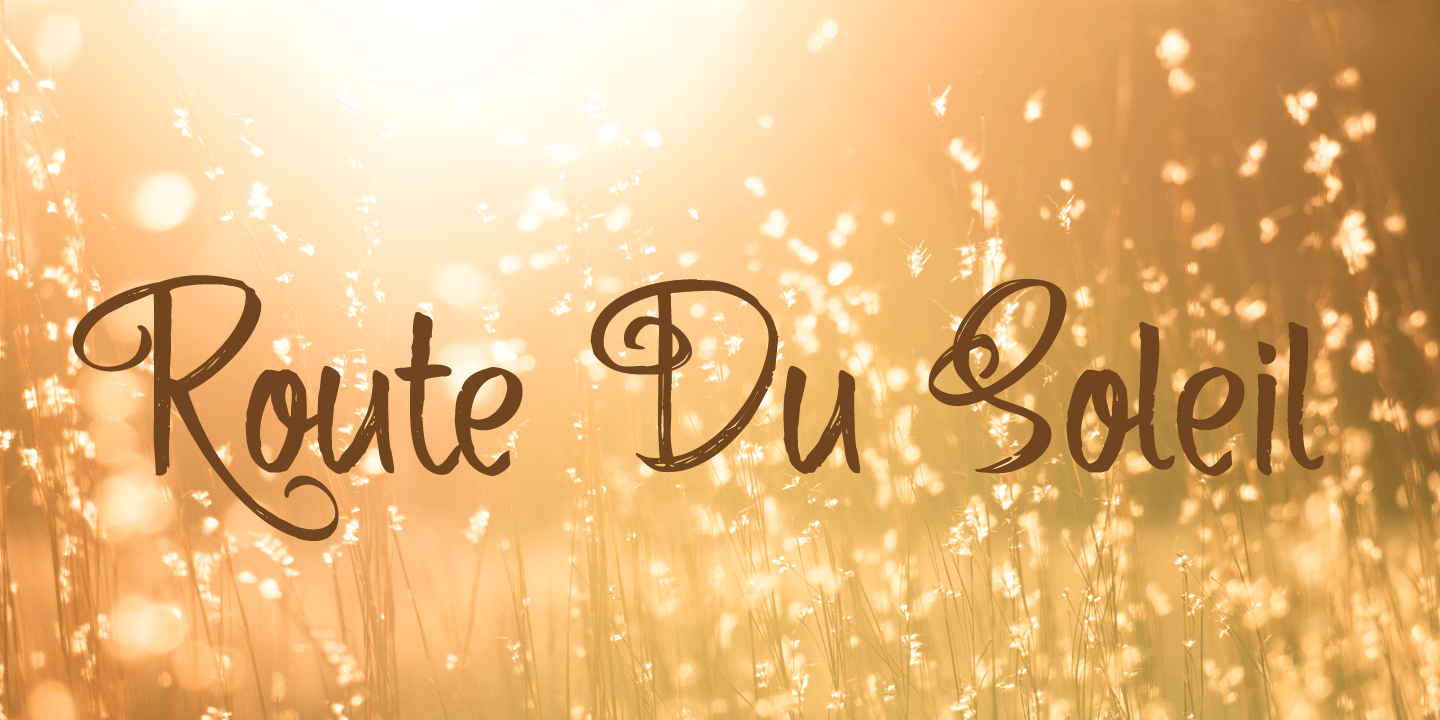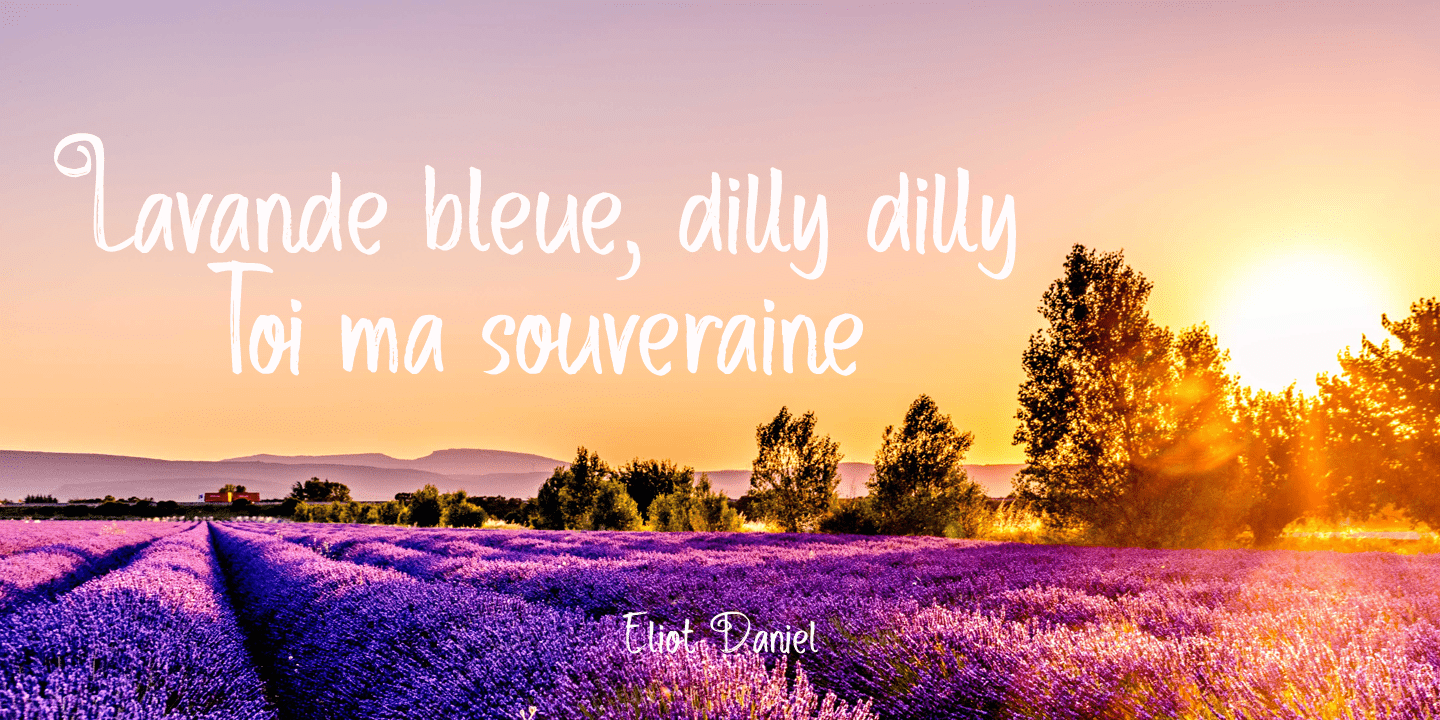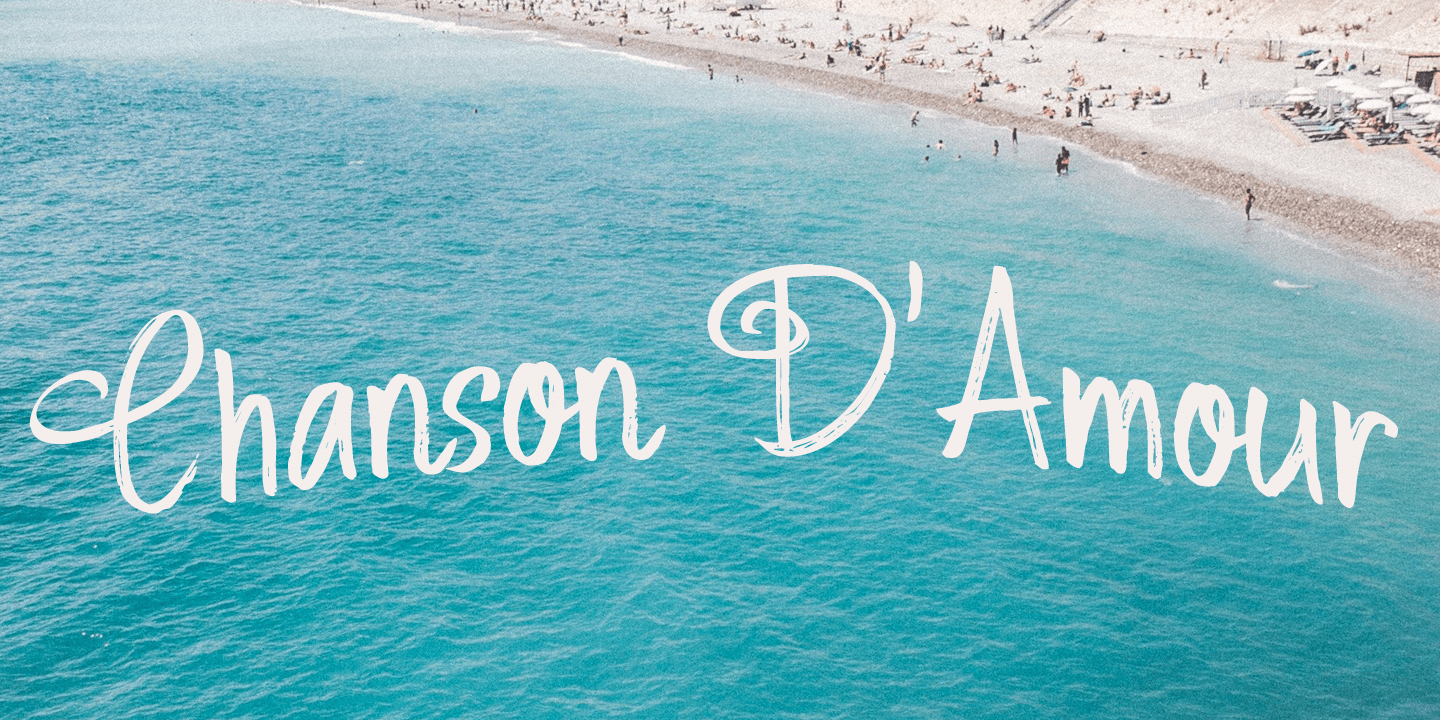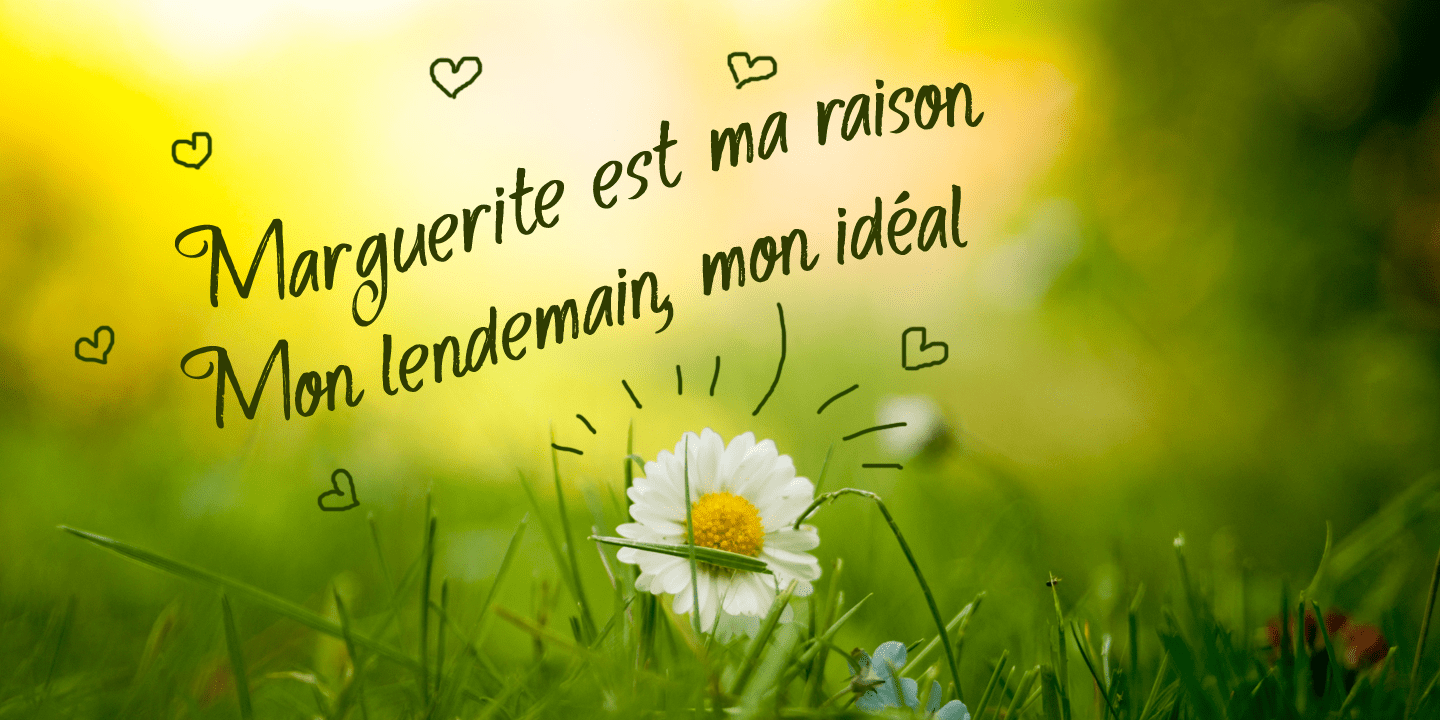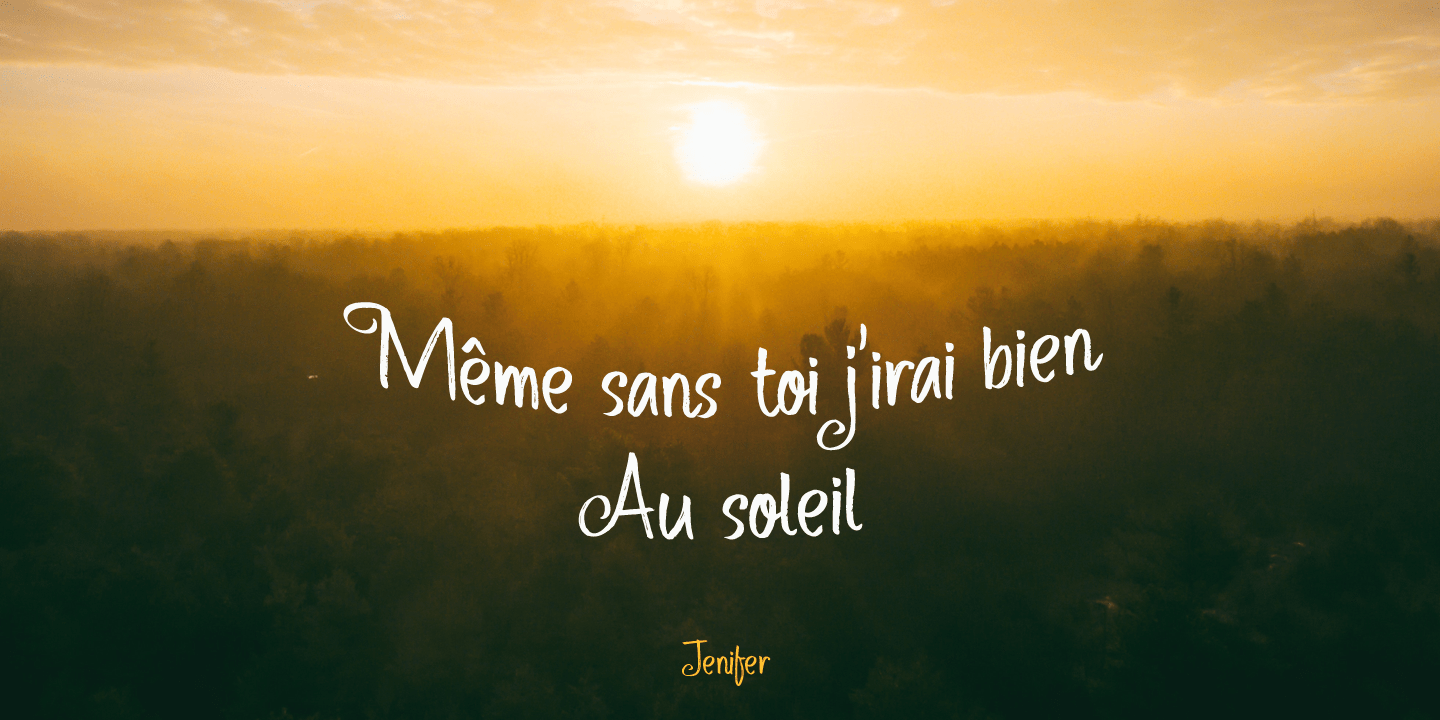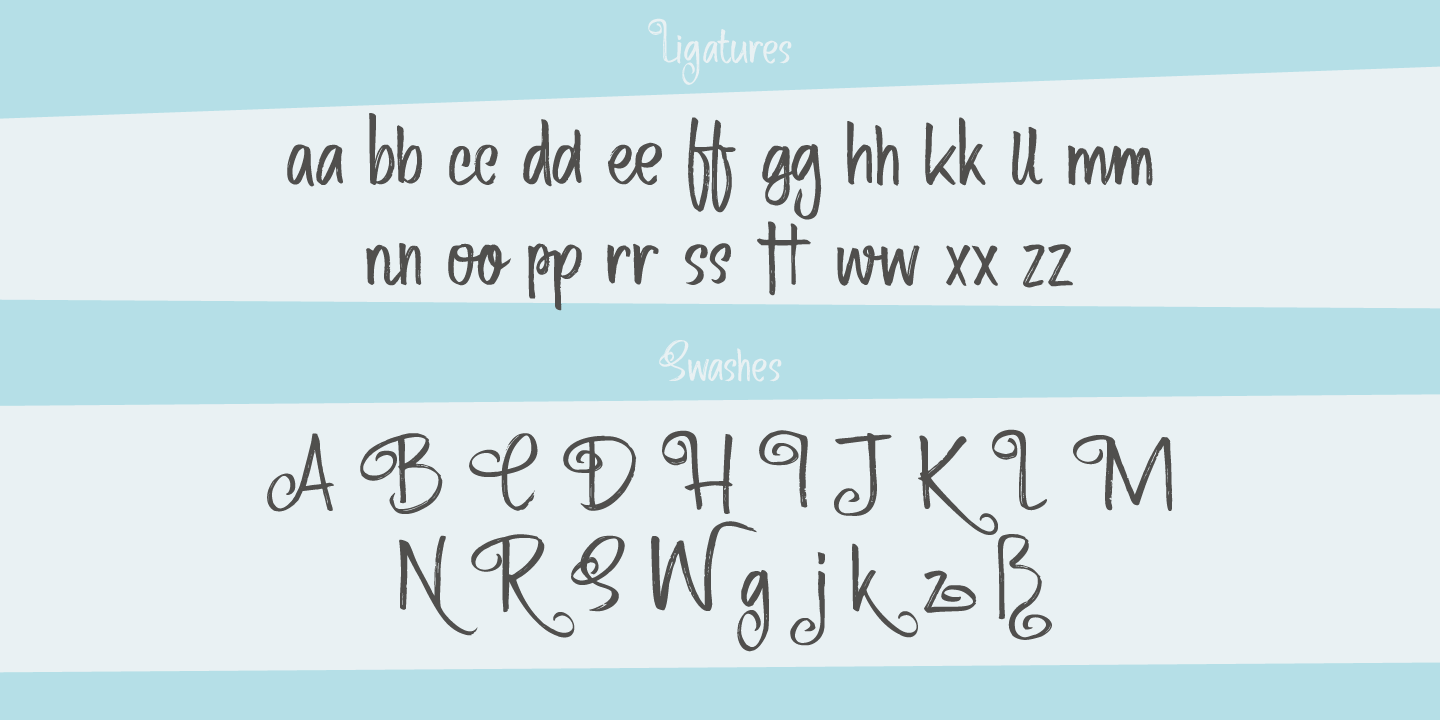
Route Du Soleil
Probably everyone living in Europe has heard of the (in)famous Route Du Soleil. The Route Du Soleil (Motorway Of The Sun) is a stretch of road from Paris to Lyon (in the south). It is THE route holiday makers take to reach southern France, so they can get there before everyone else does. The result: endless traffic jams, overheated engines and people and more toxic exhaust fumes than your average petroleum distillery.
Route Du Soleil is also a very nice hand written font that comes with swashes and ligatures. If you happen to find yourself in a traffic jam on your way to southern France, then I hope you have downloaded this font. Just one look at it and you'll forget your problems! ;-)